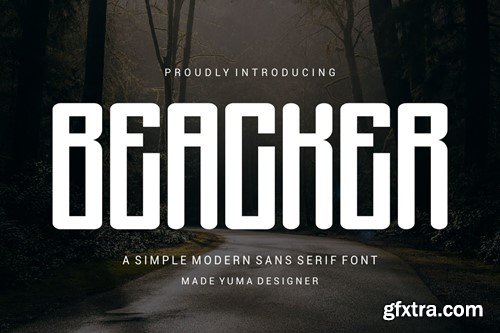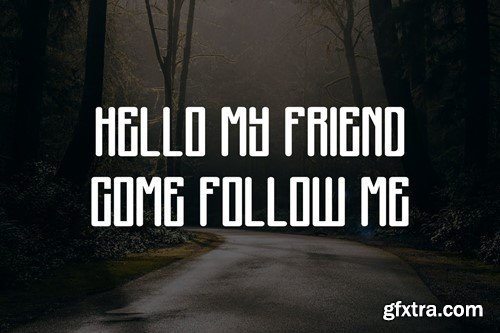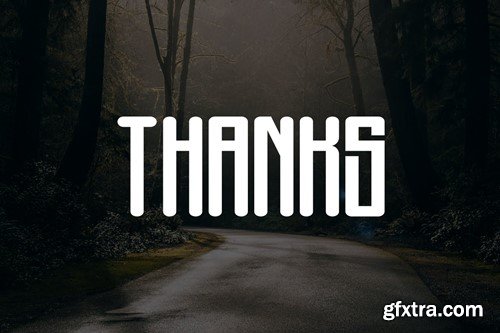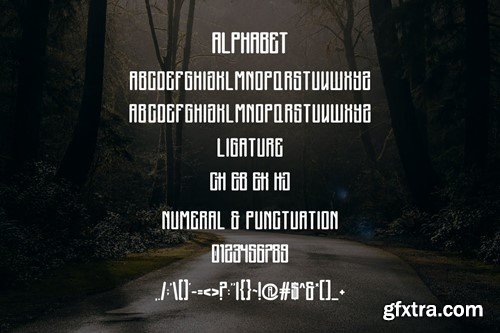
Beacker Font
Introducing Beacker Modern Sans Serif Font. Beacker is a modern and simple font, best used as a display for headings, logos, branding, magazines, product packaging and invitations. Beacker come with clean lines and smooth curves give any project an extra touch of class. What you get: Thank you.